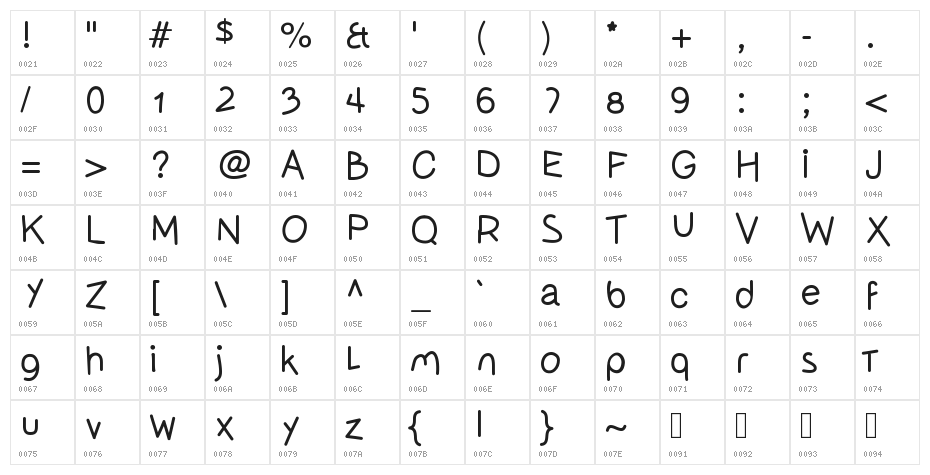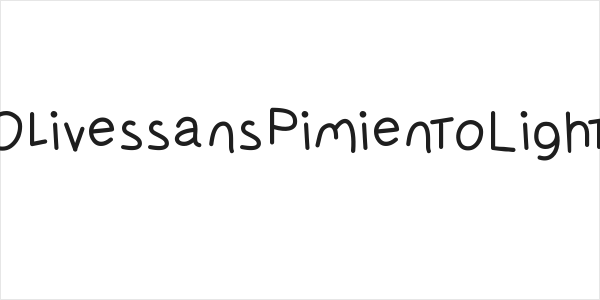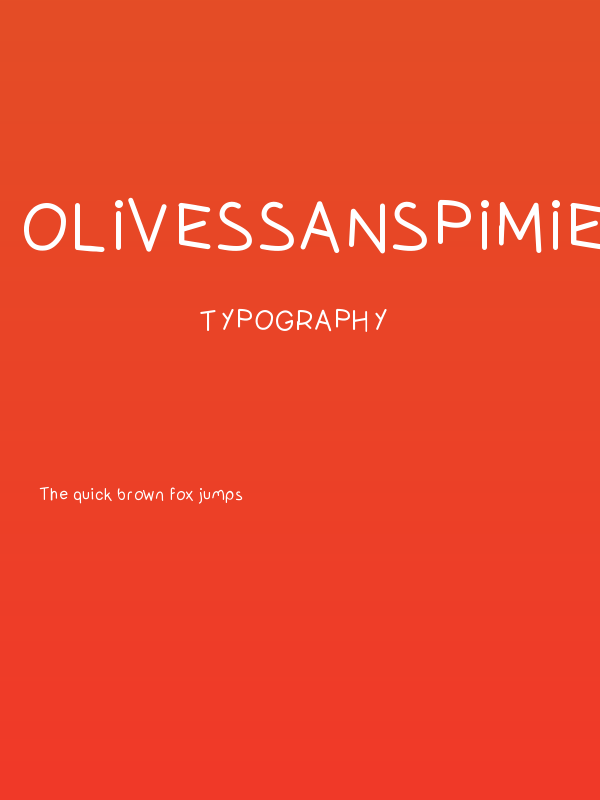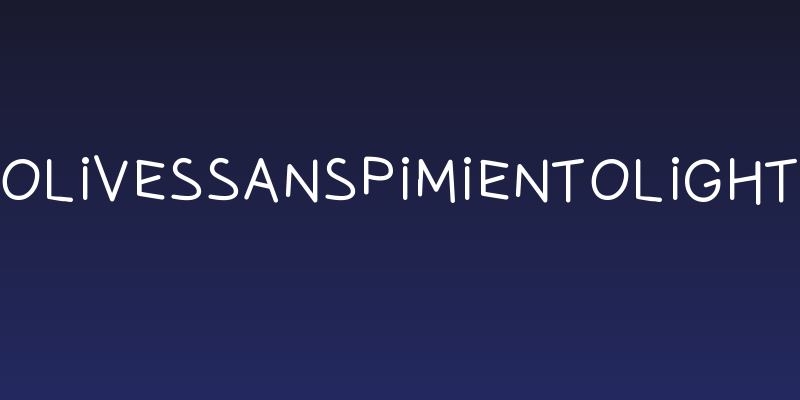
OlivessansPimientoLight Font
OlivessansPimientoLight Description
This font features a playful and rounded design, characterized by its smooth curves and friendly appearance. The letters are evenly spaced, with a consistent stroke width that gives it a clean and approachable look. The uppercase and lowercase letters maintain a uniform style, with slightly exaggerated curves that add a touch of whimsy. The numerals and special characters follow the same design principles, ensuring a cohesive appearance across all characters. This font is versatile, suitable for both digital and print media, and can be used to convey a sense of warmth and approachability.
| Proposed Projects | Ideal for children's books, playful branding, casual invitations, and friendly website headers. |